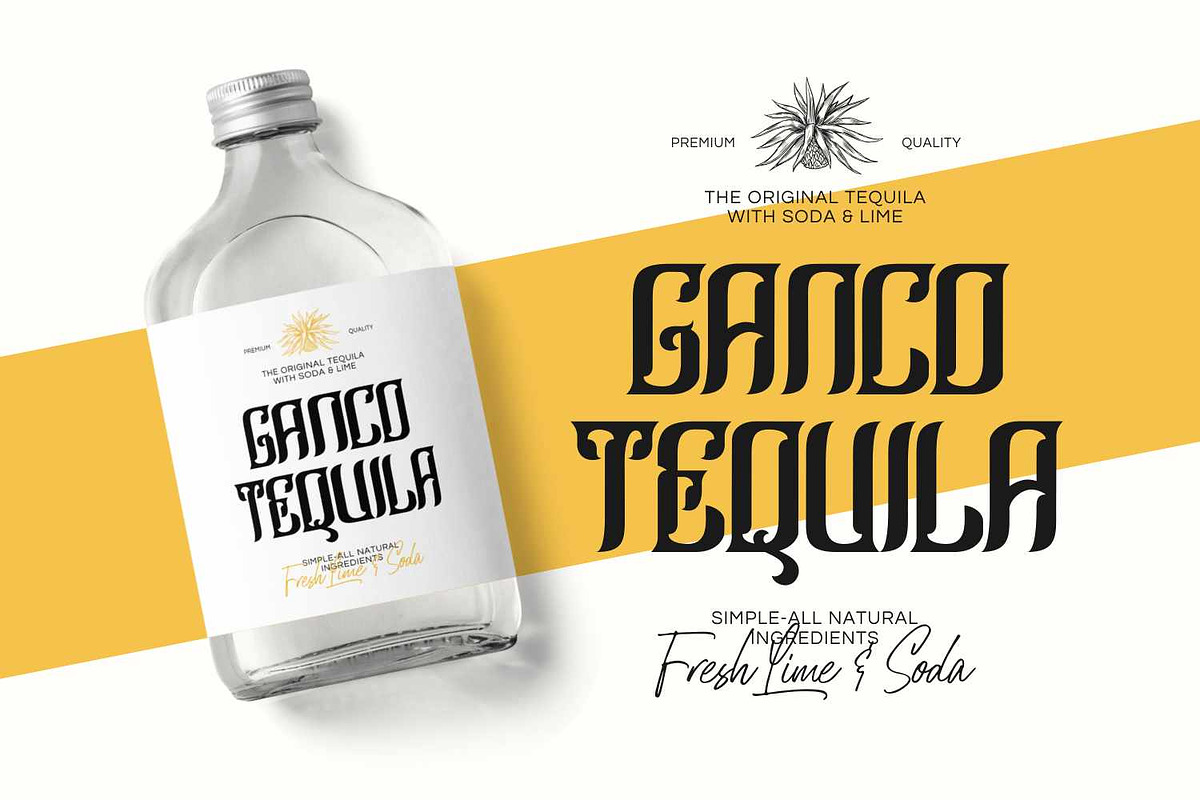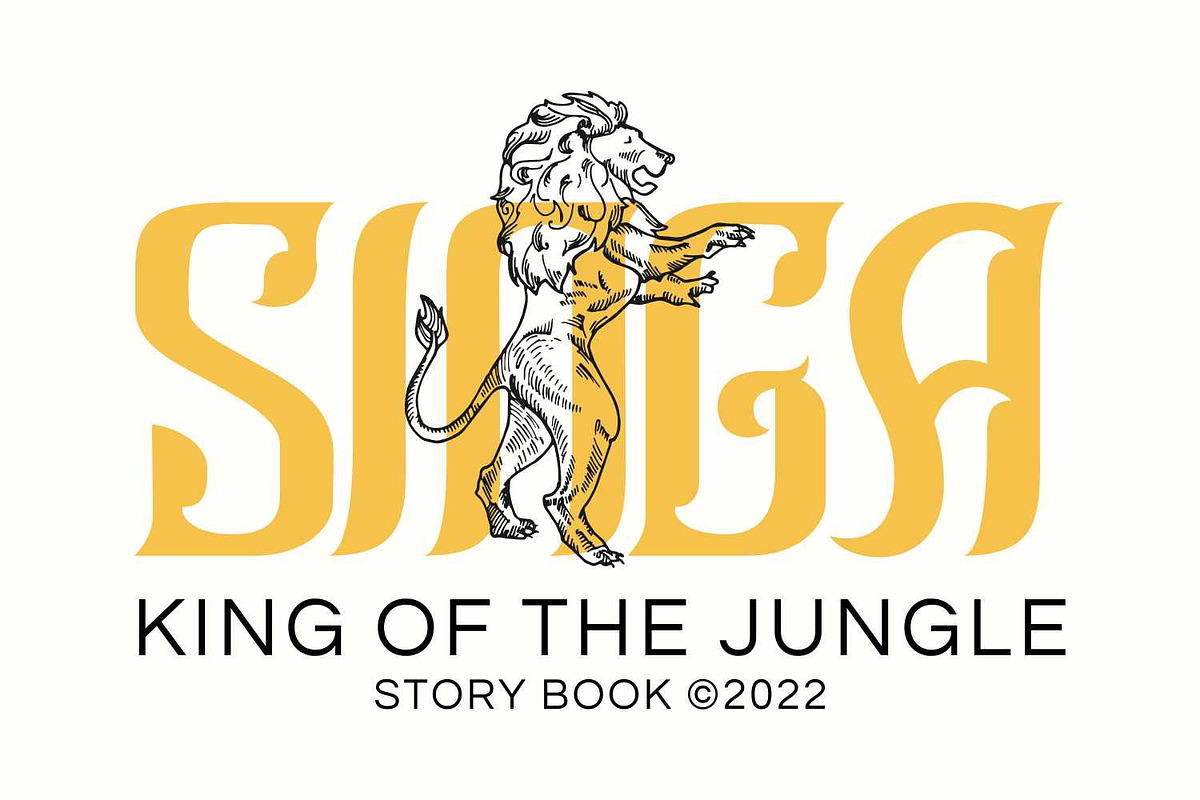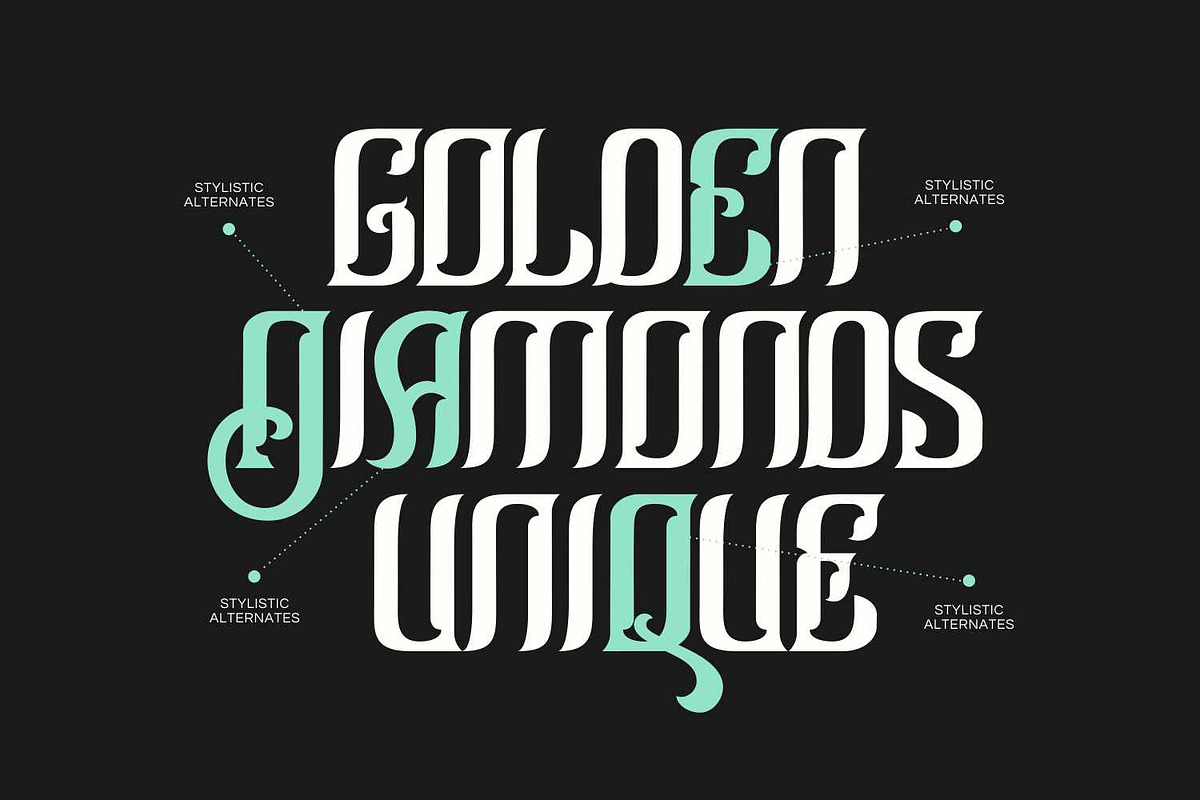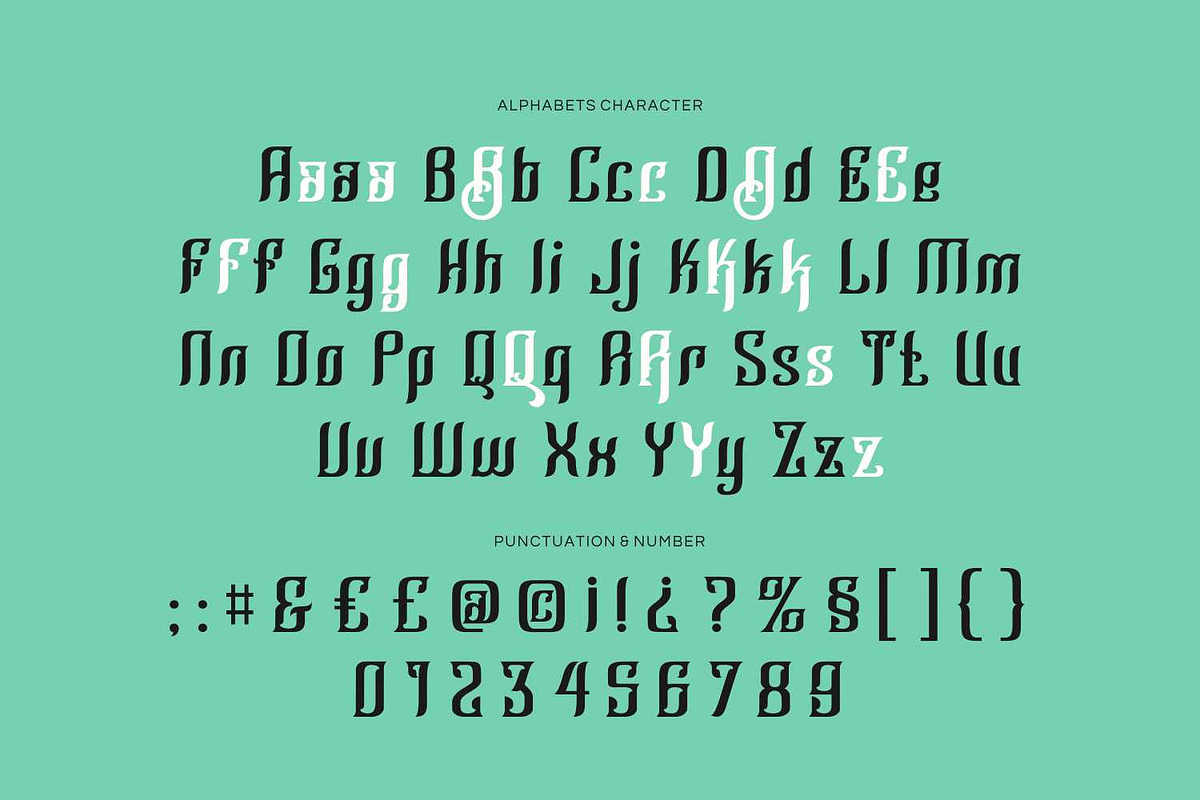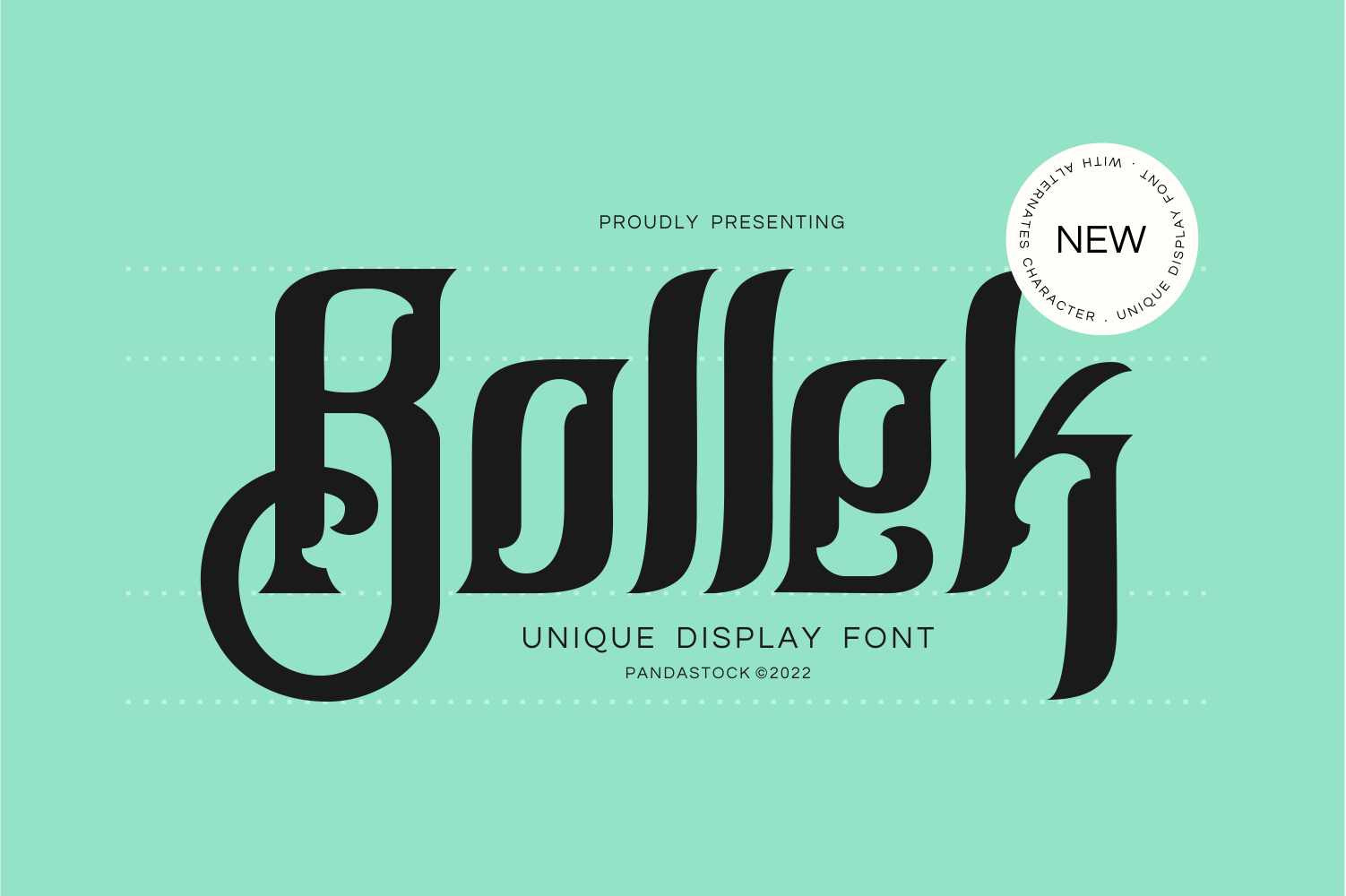
Bollek - Ornate Blackletter Font
Bollek is a ornate blackletter font that blends vintage inspiration with contemporary geometric construction. This font employs strong, high contrast vertical strokes and modular, angular curves.
Bollek strikes a balance between historic gravitas and modern versatility ideal for branding, signage, editorial headlines, craft beverages, album covers, or packaging where clarity and distinctiveness are valued over detailed ornamentation.